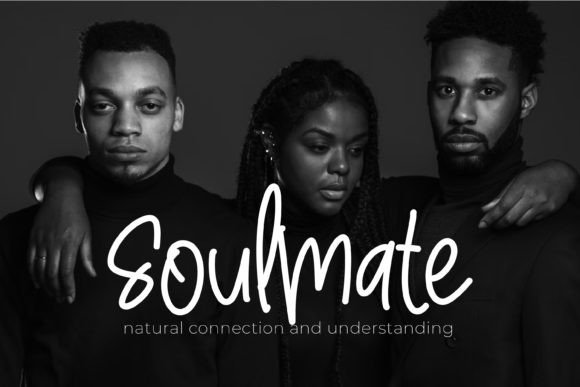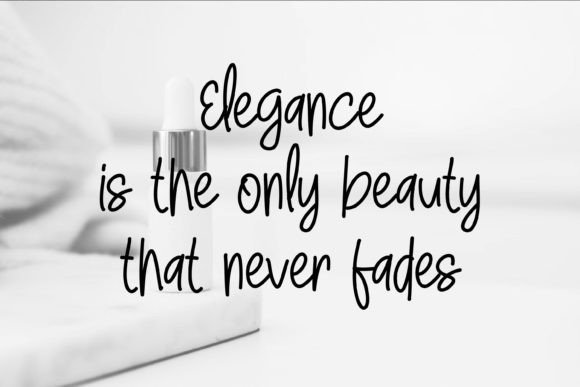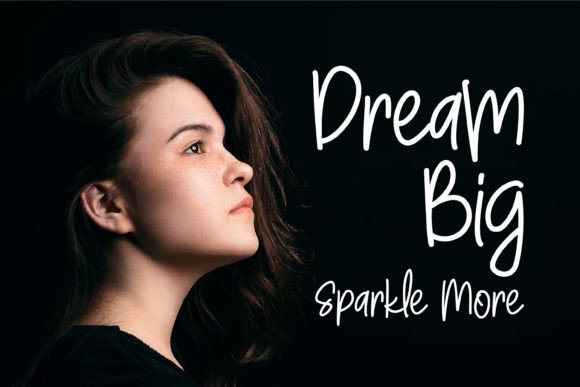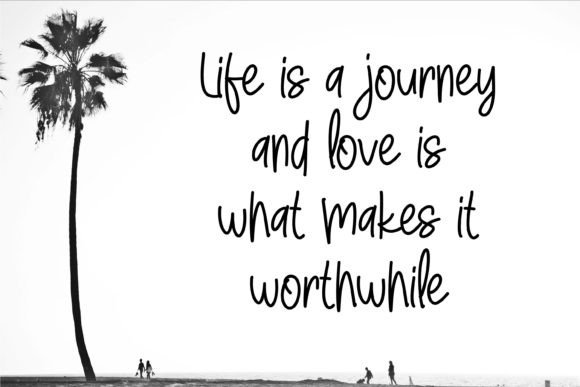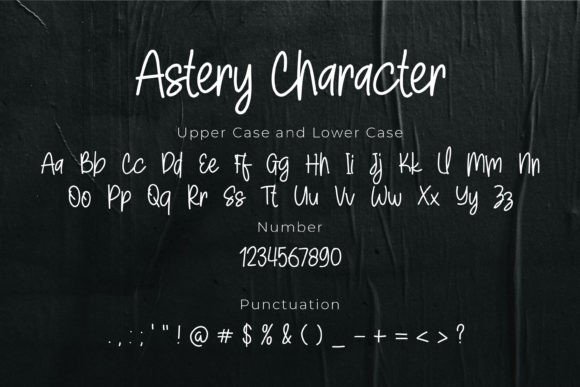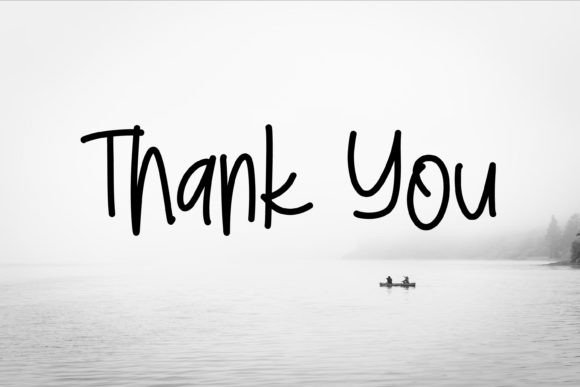
Introducing Astery Font: Elevate Your Designs with Elegance and Sophistication
In the world of typography, few fonts manage to convey the perfect blend of elegance, sophistication, and personal touch. Astery Font is one such exceptional typeface that has been beautifully crafted to add a refined and distinctive flair to your designs. Whether you’re working on logos, wedding invitations, branding materials, or any project that demands a high level of sophistication, Astery’s fluid strokes and graceful curves are sure to deliver a standout look.
The Beauty of Handwritten Signature Fonts
Handwritten signature and script fonts have always been in high demand among designers and crafters looking to infuse their projects with a personal and unique touch. Astery Font, with its meticulously designed characters, brings a level of elegance and refinement that is hard to match. Each letterform is crafted with precision, ensuring that the font flows seamlessly, making it perfect for creating visually stunning text pieces that capture attention and convey a sense of luxury.
Key Features of Astery Font
- Fluid Strokes and Graceful Curves: Astery’s design focuses on smooth transitions and elegant connections between letters, creating a harmonious and sophisticated look.
- Versatile Usage: From logos and branding materials to wedding invitations and social media graphics, Astery’s versatility shines through in various applications.
- Easy to Read and Write: Despite its elegant nature, Astery remains highly legible, ensuring that your message is conveyed clearly and effectively.
- Unique Character: Each character in Astery is designed to contribute to a cohesive and stylish aesthetic, setting it apart from more generic fonts.
Applications of Astery Font
Astery’s adaptability makes it an excellent choice for a wide range of projects. Here are some of the most popular applications:
- Logos and Branding: Use Astery to create a memorable logo or integrate it into your brand’s typography for an elegant and sophisticated look.
- Wedding Invitations and Stationery: Add a touch of romance and luxury to your wedding invitations, thank you cards, and other stationery with Astery’s beautiful script.
- Social Media Graphics: Elevate your social media presence with Astery, making your posts, stories, and banners stand out.
- Packaging: Whether it’s product labels or packaging design, Astery can add a refined and premium feel to your products.
Tips for Using Astery Font Effectively
To maximize the impact of Astery in your designs, consider the following tips:
- Pair with Complementary Fonts: Combine Astery with simpler sans-serif or serif fonts to create contrast and highlight key information.
- Adjust Letter Spacing: Experiment with kerning to find the perfect balance that enhances readability and aesthetics.
- Play with Colors: While Astery looks stunning in classic black and white, don’t be afraid to experiment with colors that match your brand or theme.
Astery Font is more than just a typeface; it’s a design element that can transform your projects with its elegance and sophistication. Whether you’re a professional designer or a DIY crafter, Astery offers the perfect blend of style, versatility, and personal touch. By incorporating Astery into your designs, you’re not just choosing a font; you’re elevating your project’s aesthetic and making a lasting impression on your audience.